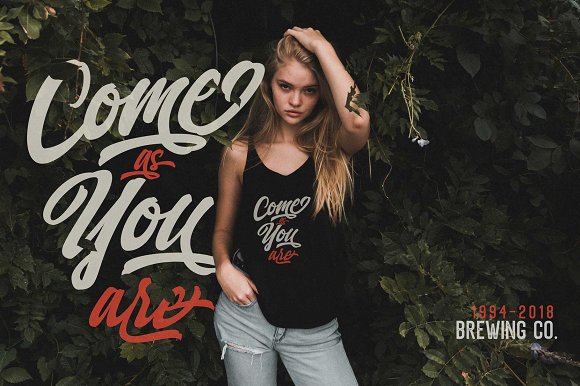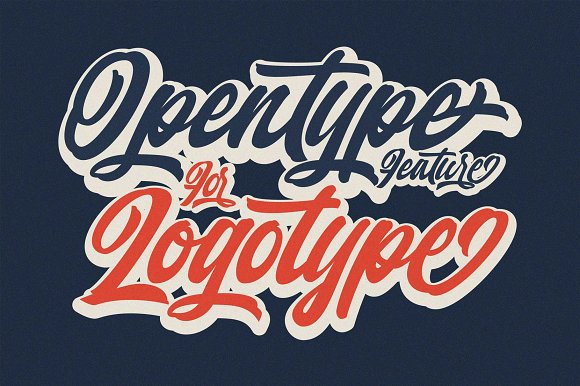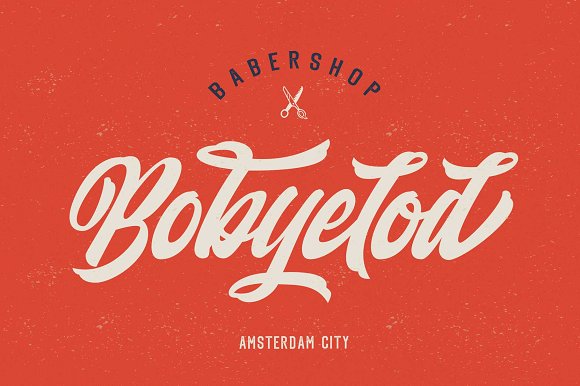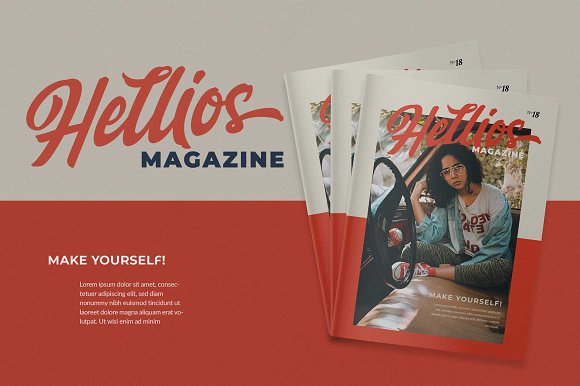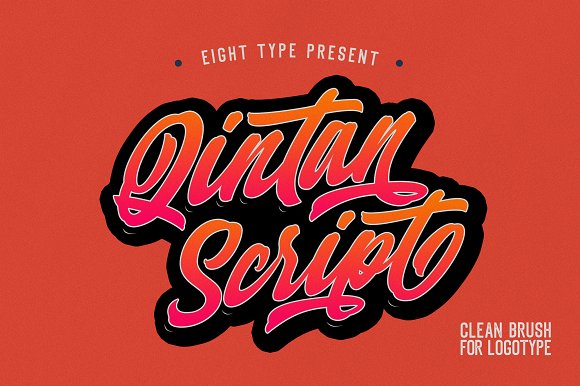
Qintan Script Font
Introducing Qintan Font! It is designed by Francesco Canovaro and shared by Eight Type. Qintan Inspired by urban, streetwear and vintage made with love handlettering style. Ideal for branding, logos, handwriting quotes, product packaging, headers, posters, merchandise, social media Books / Cover titles, special events, etc.